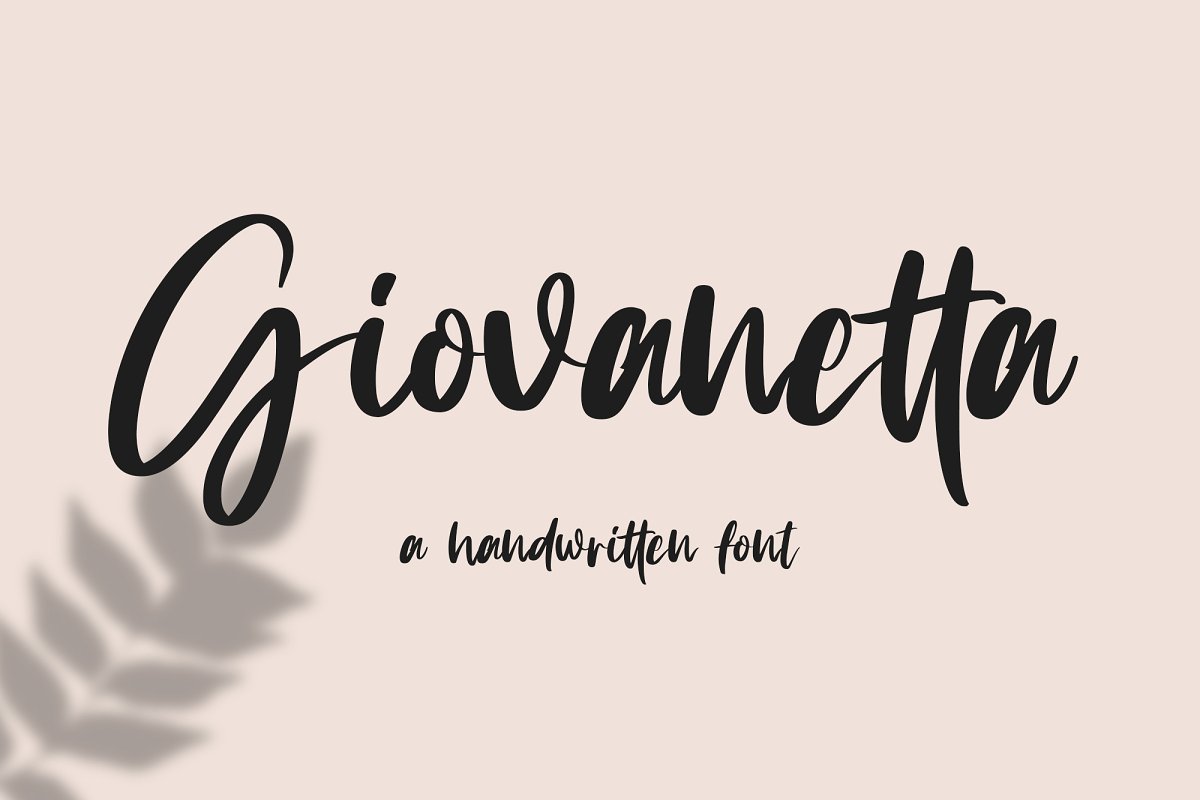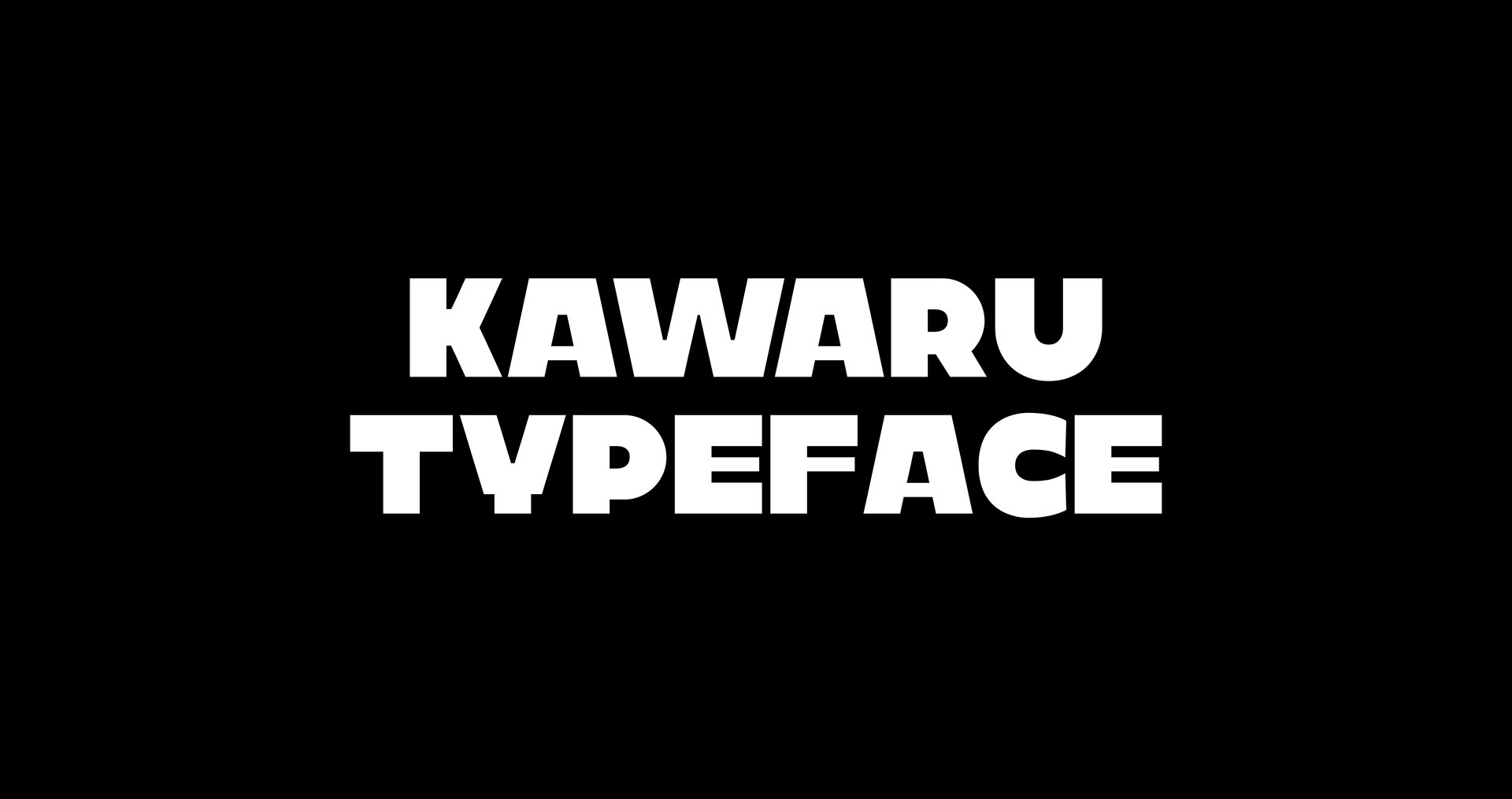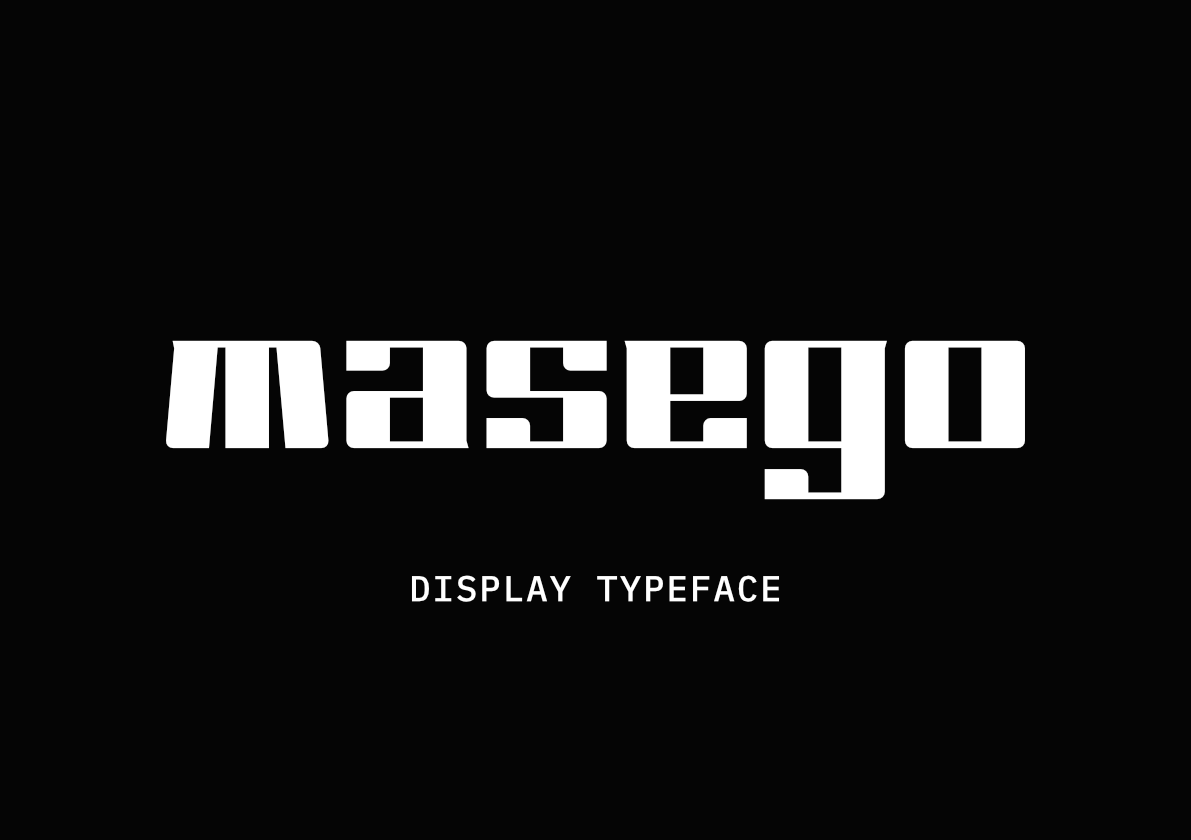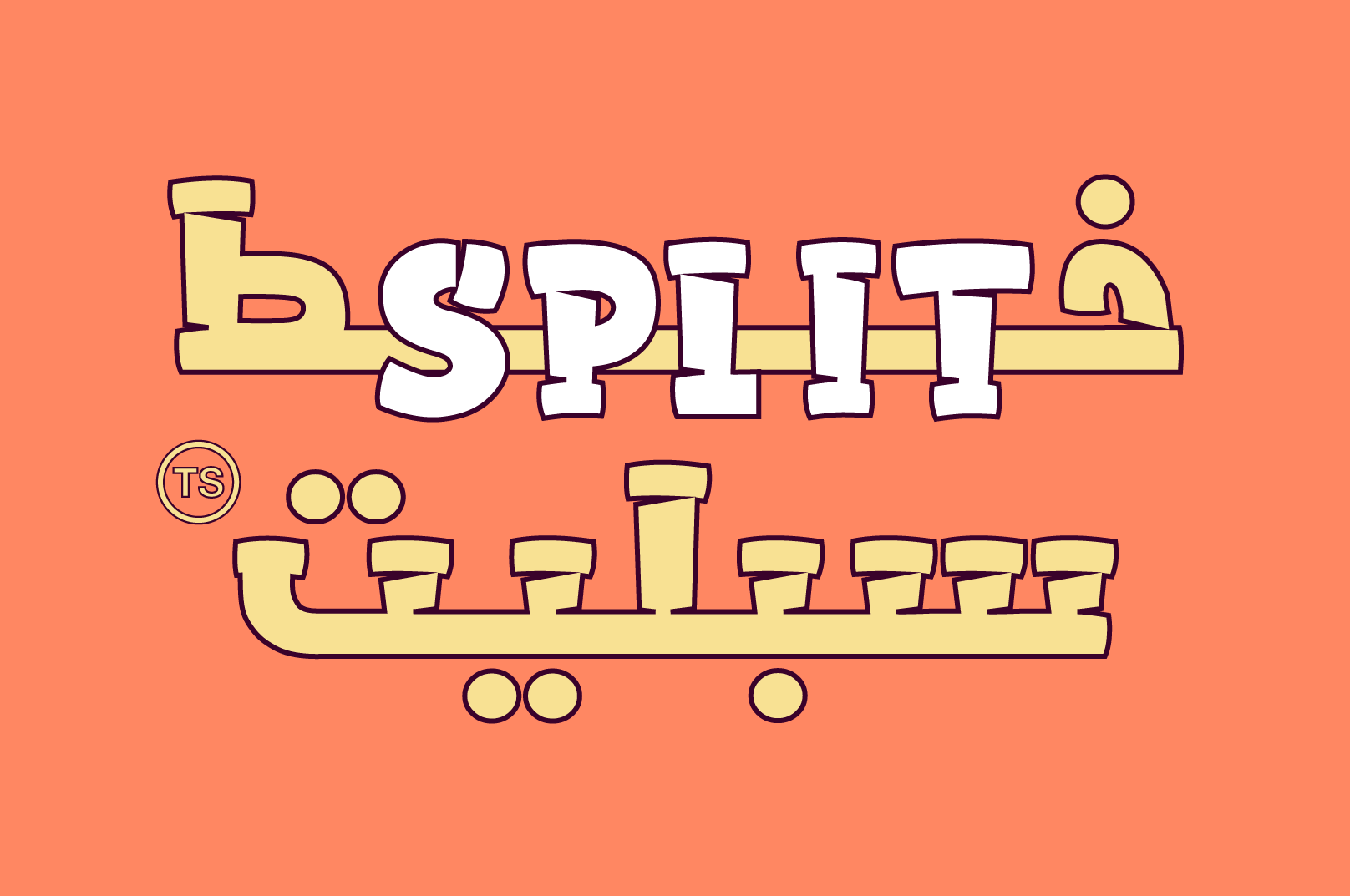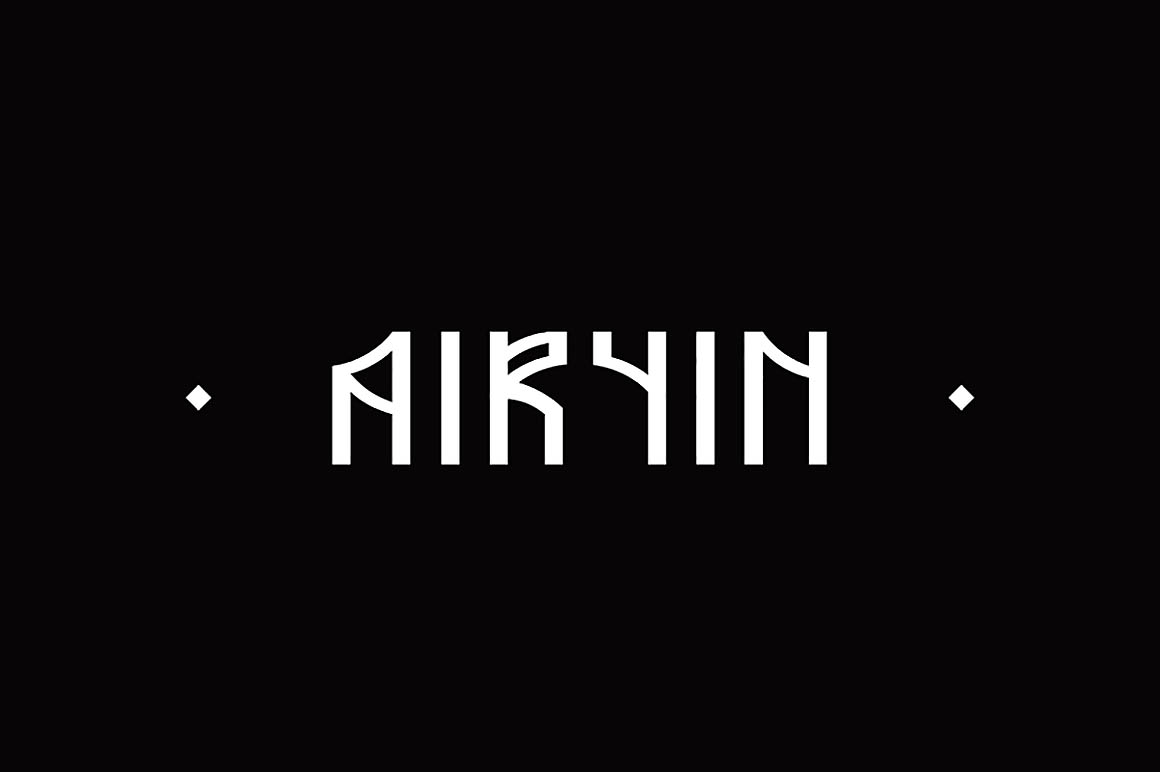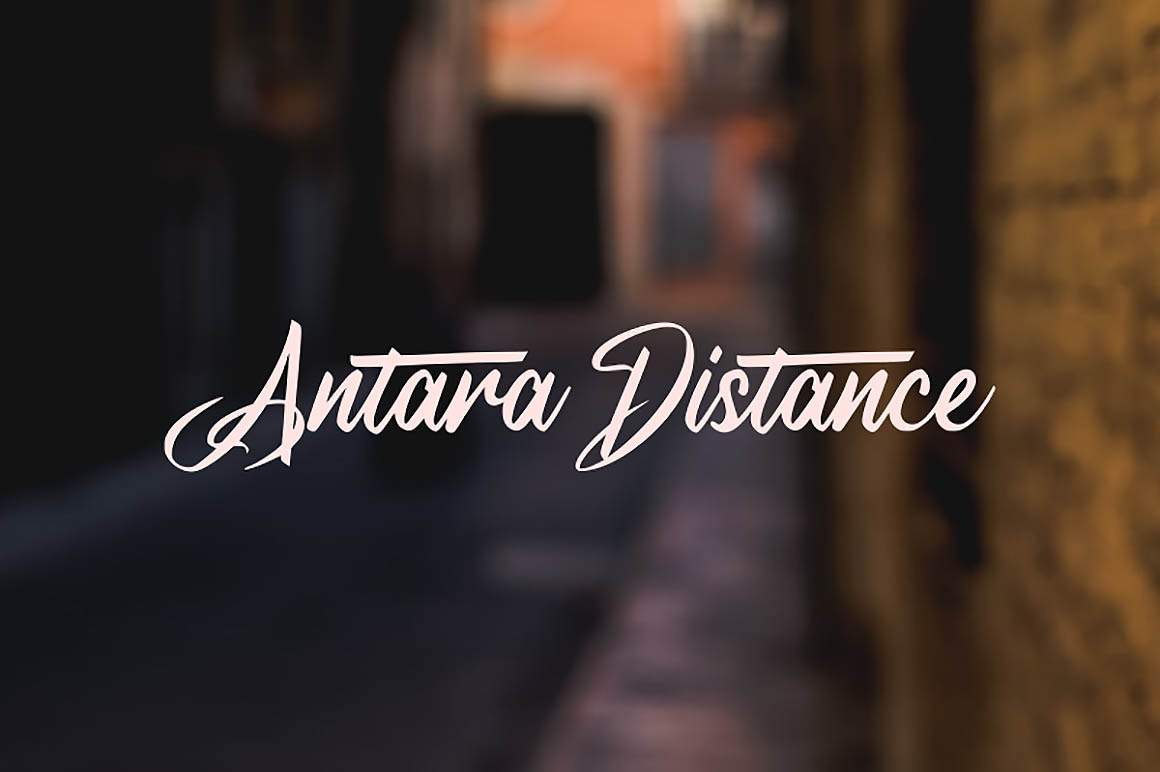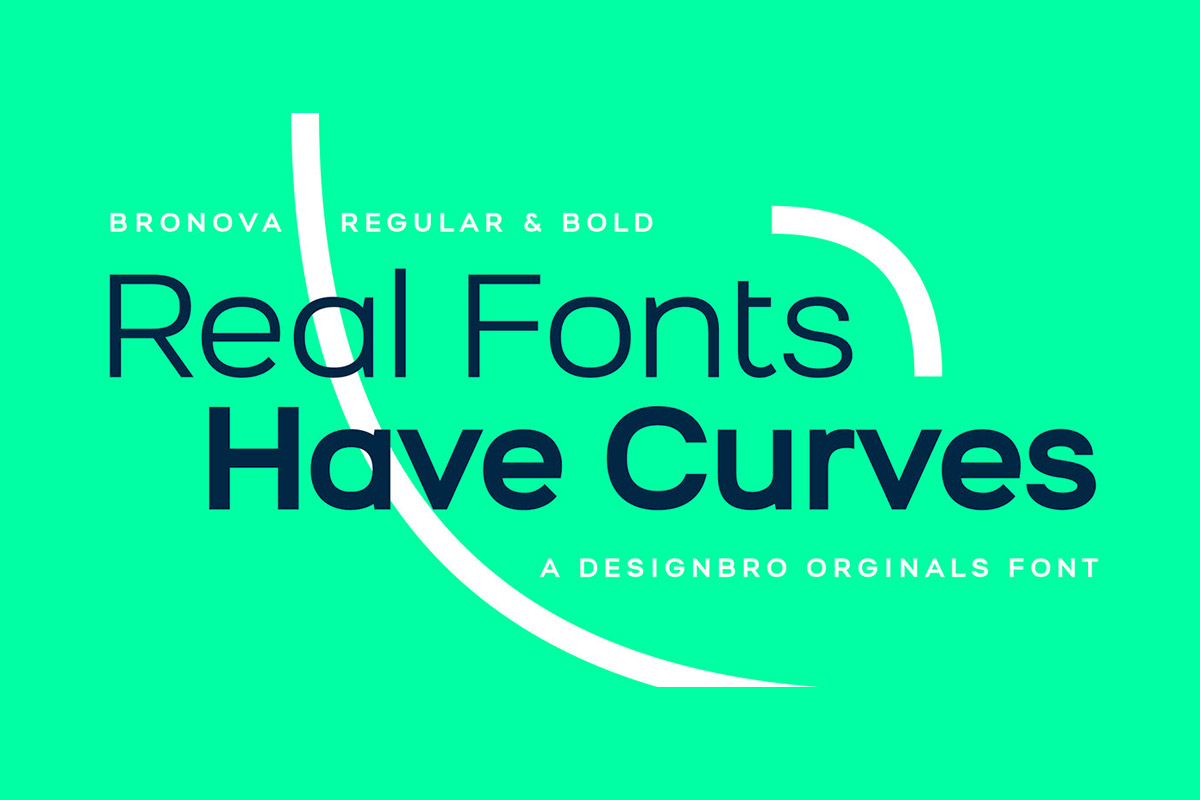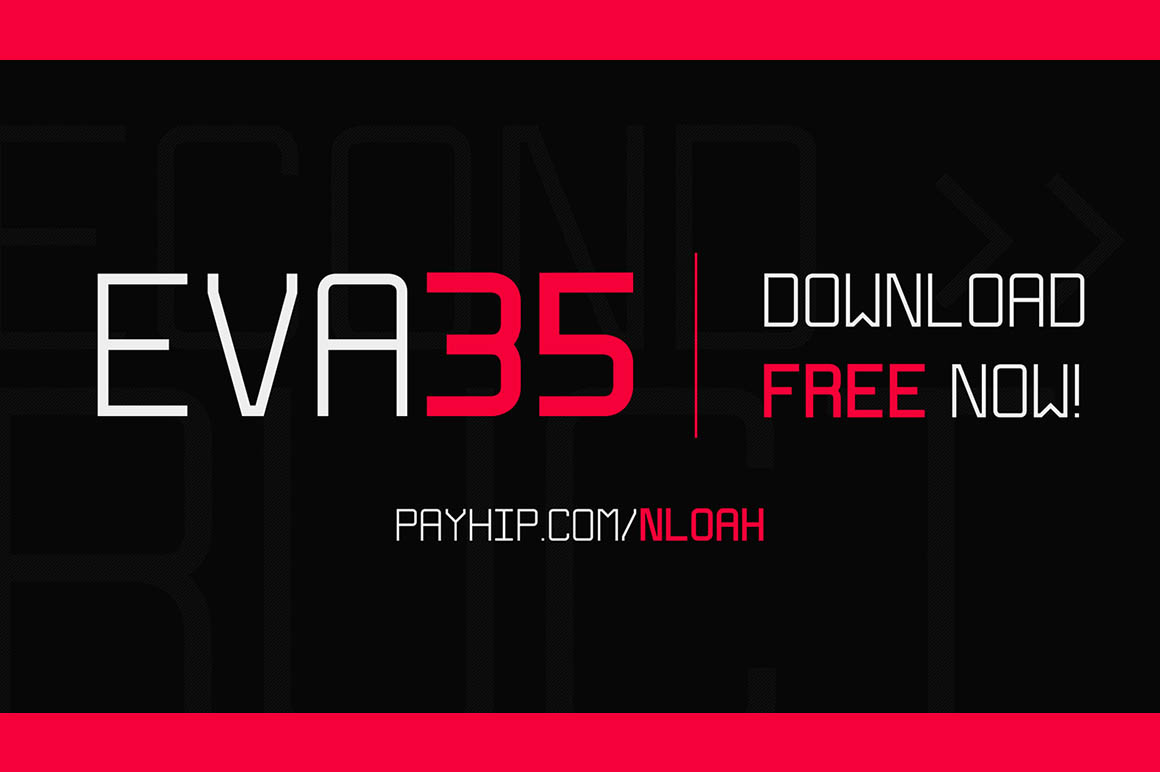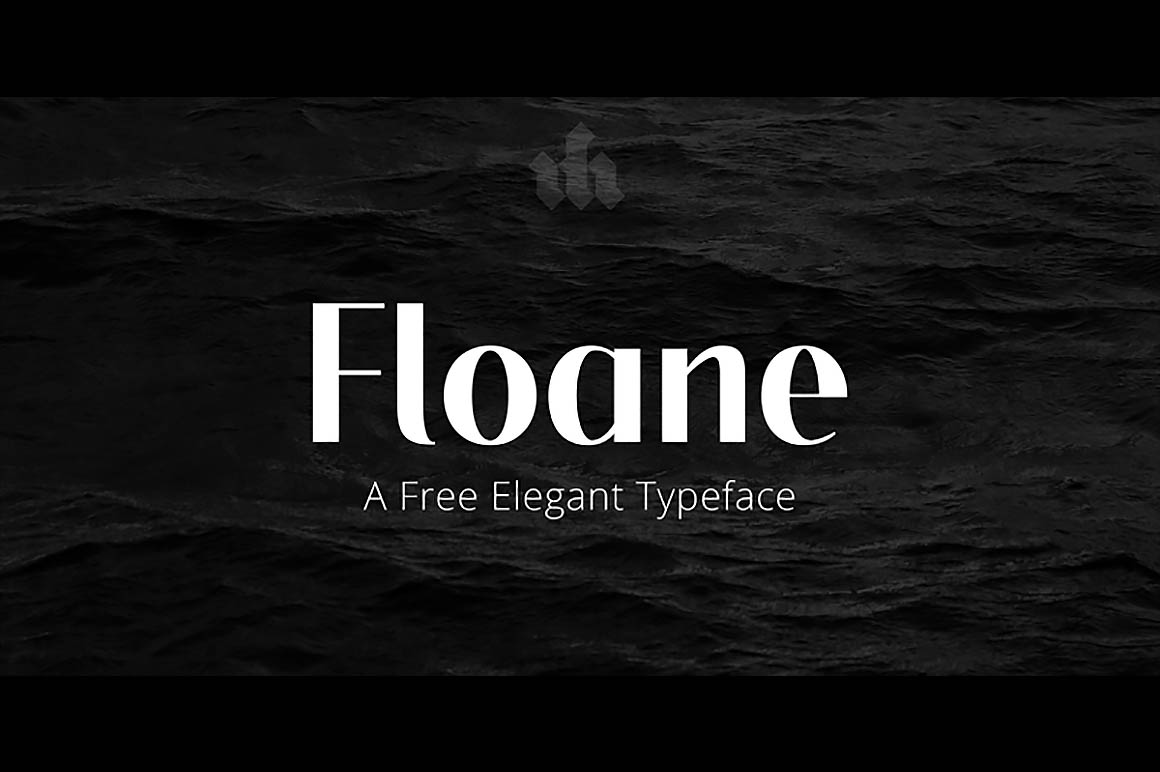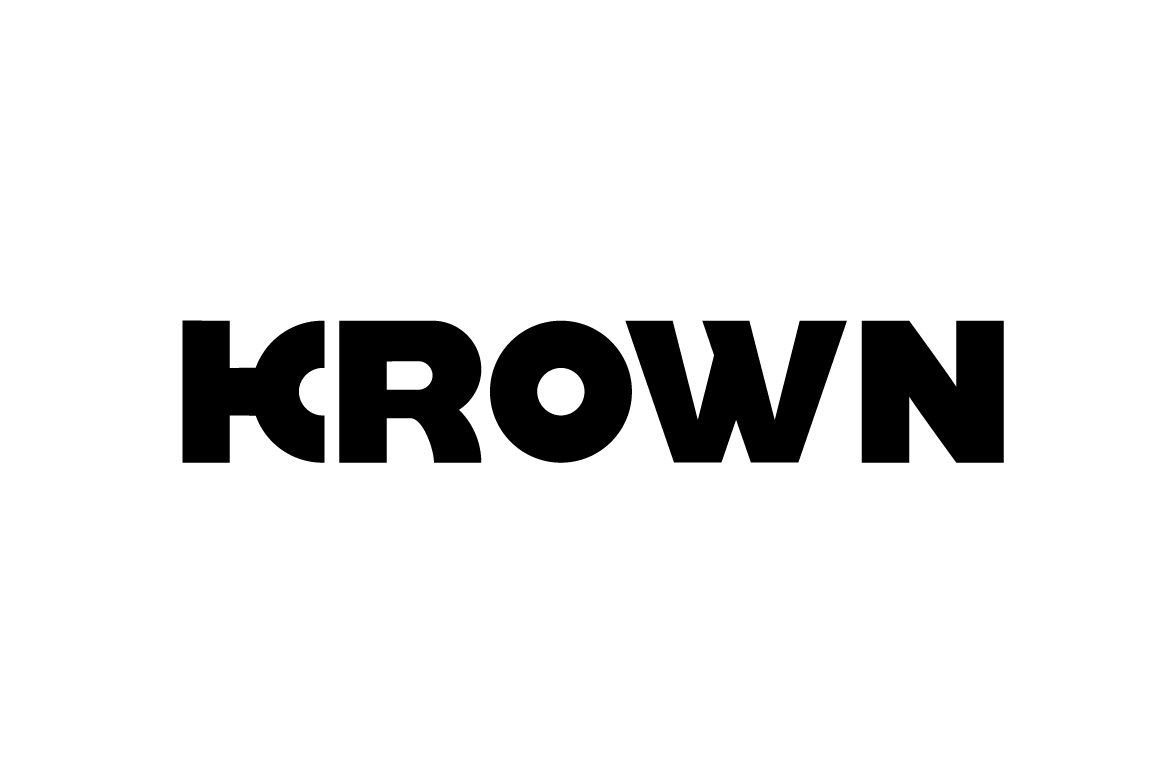
100+ Best Free Fonts of 2020
Fonts are essential for every design business and freebies is always a good thing to make a design wihout spending lots of money.
The following free typefaces and fonts are ideal to make an attractive design and fit for any web or graphic project. You can use these fonts as a logo, badge, insignia, packaging, headline, poster, t-shirt / apparel, greeting card, and wedding invitation.
1. Migha – Free Variable Font
2. Saloniakia – Free Display Font
3. Figno Free Font
4. Marlon Free Font
5. Celliad Free Font
6. Lkdown Free Font
7. Stamp AMY Free Font
8. Don Graffiti Free Font
9. Blackshore SVG – Hand Painted Free Font
10. Maler – Display Free Font
11. Vervelle – Script Free Font
12. Hundrea Script Free Font
13. Silka Mono Free Font
14. Dinomouse Free Font
15. Kuriland Free Font
16. Boldhead Free Font
17. Lulusma Free Font Family
18. Big Shoulders Display Free Font Family
19. A Black Crown Free Font
20. Klepon Ijo Free Font
21. Residu Free Font
22. Apice Free Font Family
23. Hamburg Hand Free Font
24. Gathenbury Script Free Font
25. Merciana Script Free Font
25. Dexotic Free Font
26. Dark of the Moon Free Font
27. Isometretos Free Font
28. Childhood Free Font
29. Eva 35 – Free Font
30. Ngosngos Free Font
31. Rikailu Free Font
32. Antara Distance – Free Font
33. Alloy Ink – Free Font
33. Grumaz – Free Font
34. Maniac Letters – Free Font
35. Boogie Free Font
36. Pallawa Free Font
37. Larrikin Free Font
38. Backpacker Free Typeface
39. Floane Free Font
40. Airyin – Free Font
41. Voodoo – Free Font
42. Rich – Free Font
43. Maragsa Free Font
44. Athena VKF Font
45. Baxter Free Font
46. Origamic Free Font
47. Shinners Free Font
48. Masego Free Typeface
49. Fitalia Free Font
50. Dead Author – Free Font
51. Kawaruâ„¢ Typeface
52. Quint Uppercase Free Font
53. Metaphor – Free Display Typeface
54. Montreau Free Serif Font
55. Giovanetta Free Script Font
56. Knucklehead – Free Vintage Font
57. A Ambyar Sobat Free Font
58. Oito – Free Font Family
59. Bong Gio Display Free Font
60. Nera Free Font
61. Plat Nomor Free Font
62. Shift Pro – Free Font
63. Practice – Free Font
64. Raventame – Free Handwritten Brush Font
65. Righteous – Free Handwritten Brush Font
66. Ramona – Free Font
67. Krown Free Font
68. Jenriv Free Font Family
69. Caladea Free Font Family
70. Pixer – Free Pixel Font
71. CheeseBurga – Free Chubby Cute Font
72. Boldenvan Display Free Font
73. Split – Free Arabic Typeface
74. Zyabilk – Free Font
75. Wowi – Free Font
76. Brendohand Free Font
77. Zeit – Free Font
78. Doppelganger – Free Font
79. SK Asya – Free Typeface
80. Corona – Free Font
81. Kagitingan Free Font
82. Lerty – Free Typeface
83. Plovdiv – Free Typeface
84. Milles – Free Calligraphy Font
85. Eberley Free Font
86. 36DAYS Free Font
87. Payline – Free Tattoo Font
88. Tomodachy – Free Font
89. Prokopis Handmade Free Font
90. Covid SY – Free Font
91. Cobre – Free Font
92. Manila – Free Condensed Font
93. Space Grotesk Free Sans Serif Font
94. Beat Word – Free Comic Font
95. Chivo – Free Sans Serif Font
96. Devitos – Free Serif Font
97. Pandemic – Free Font
98. Bronova – Free Font Family
99. LL Baguyo – Free Font
100. Pomidor – Free Display Font
101. BLKND Free Font
102. North Avelion – Free Font Duo Script Font